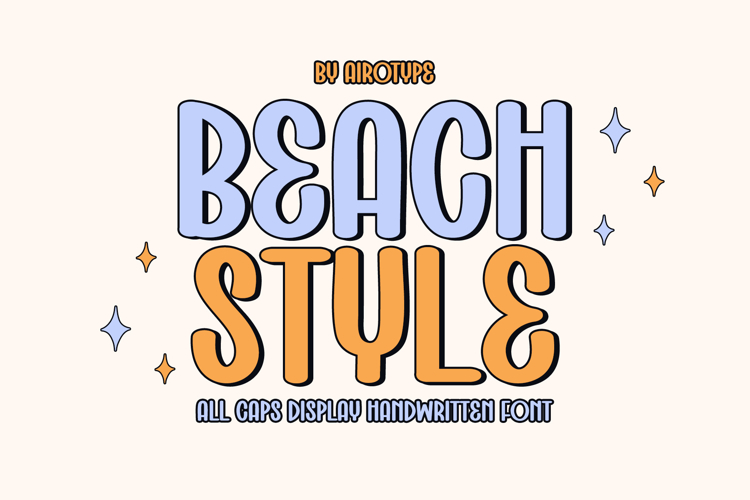
Beach style is simple handwritten font with cute and playful touch.
This font is festive font for wide ranges of design with cute theme, such as t-shirt, display, crafting, sticker, quotes, tumbler, sublimation, and many more.
- All Caps
- Numeral and Punctuation
- Most Multilingual Accent